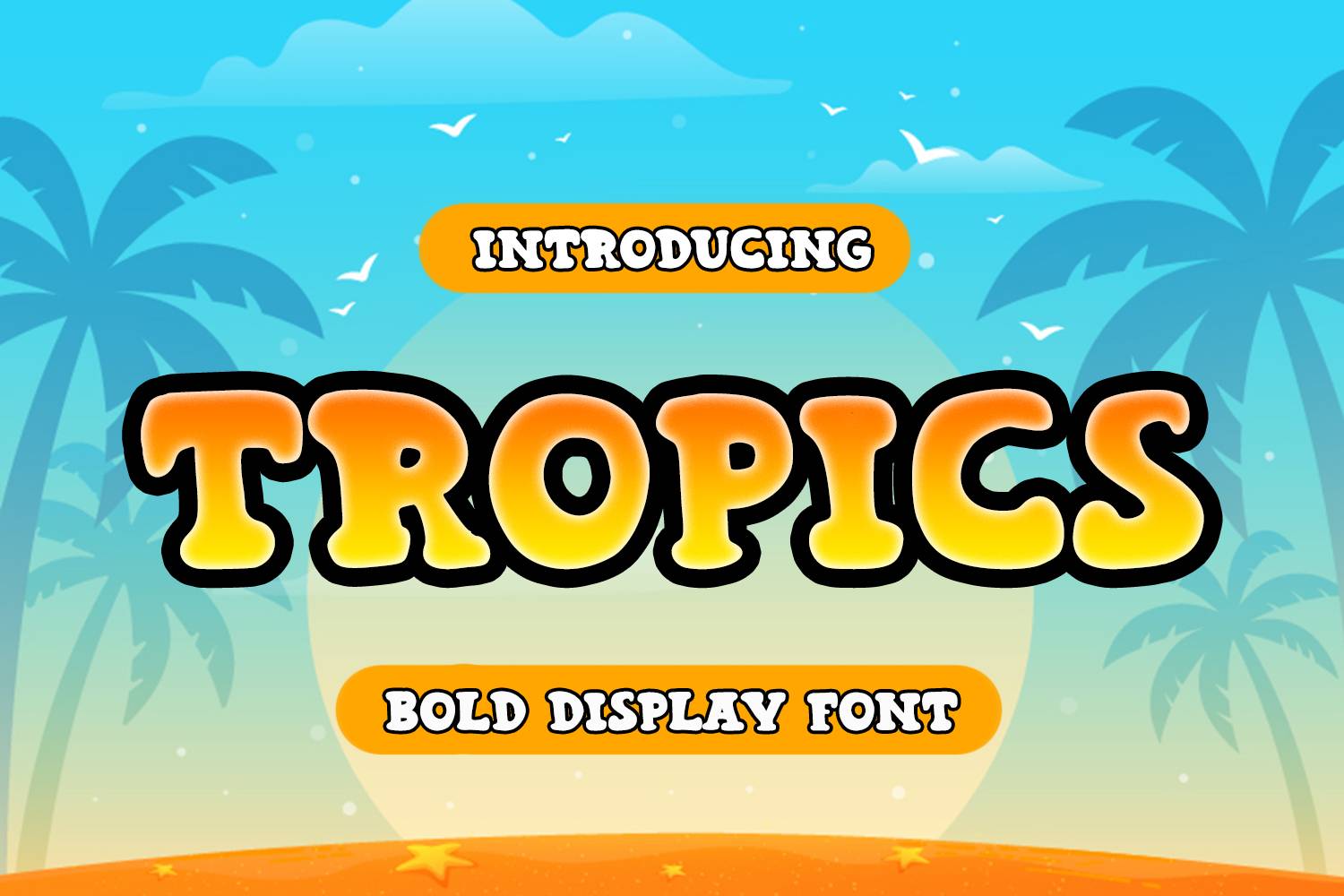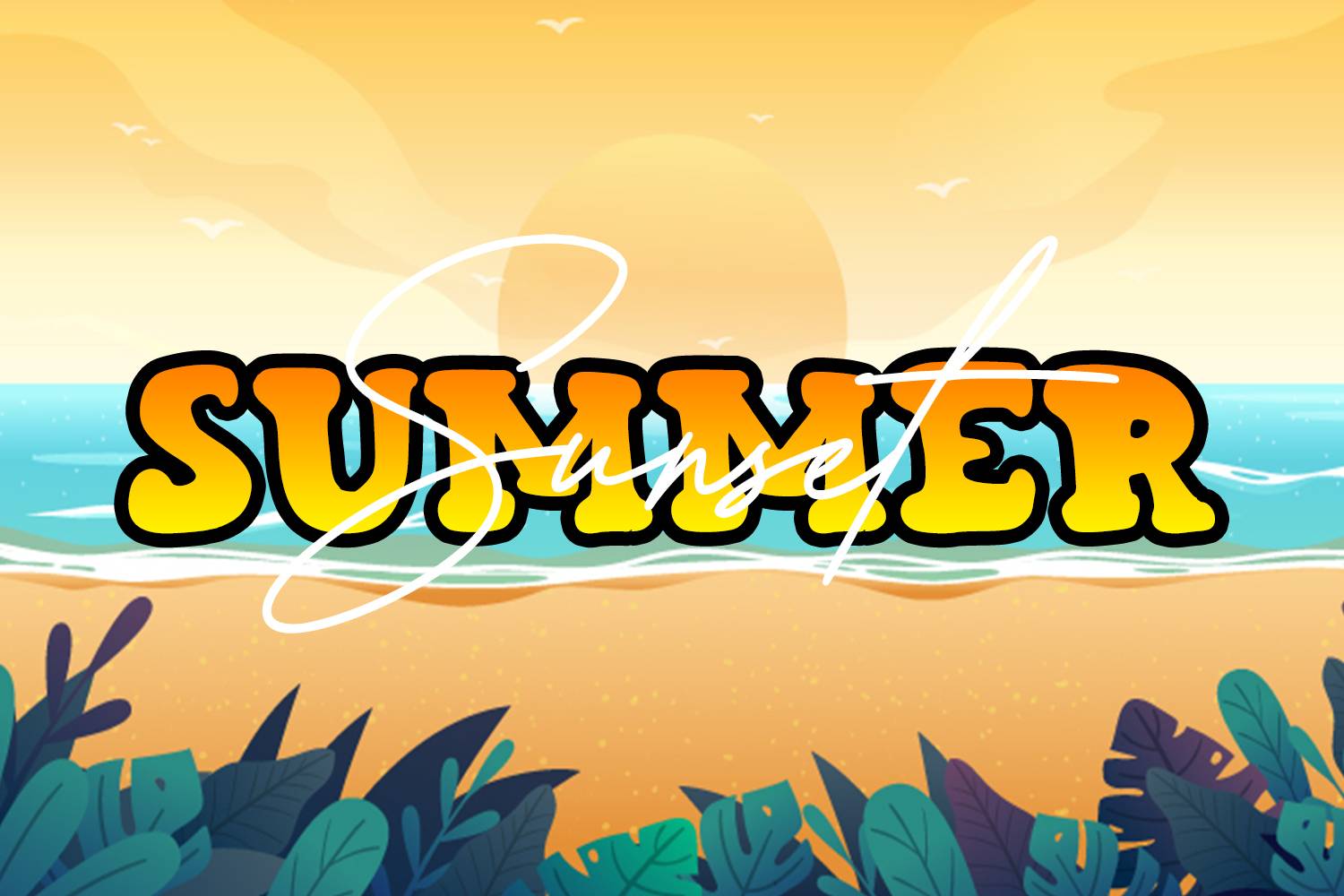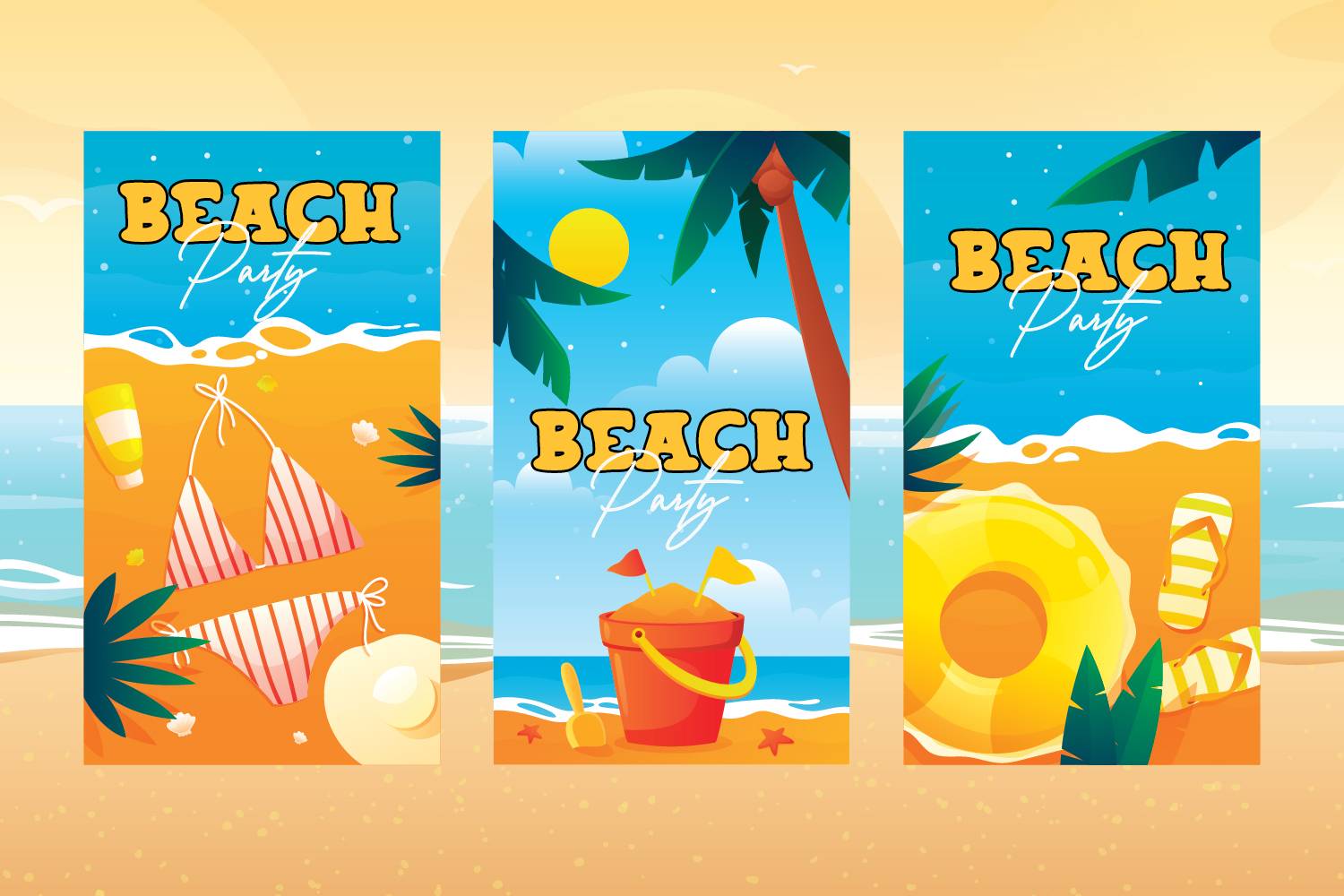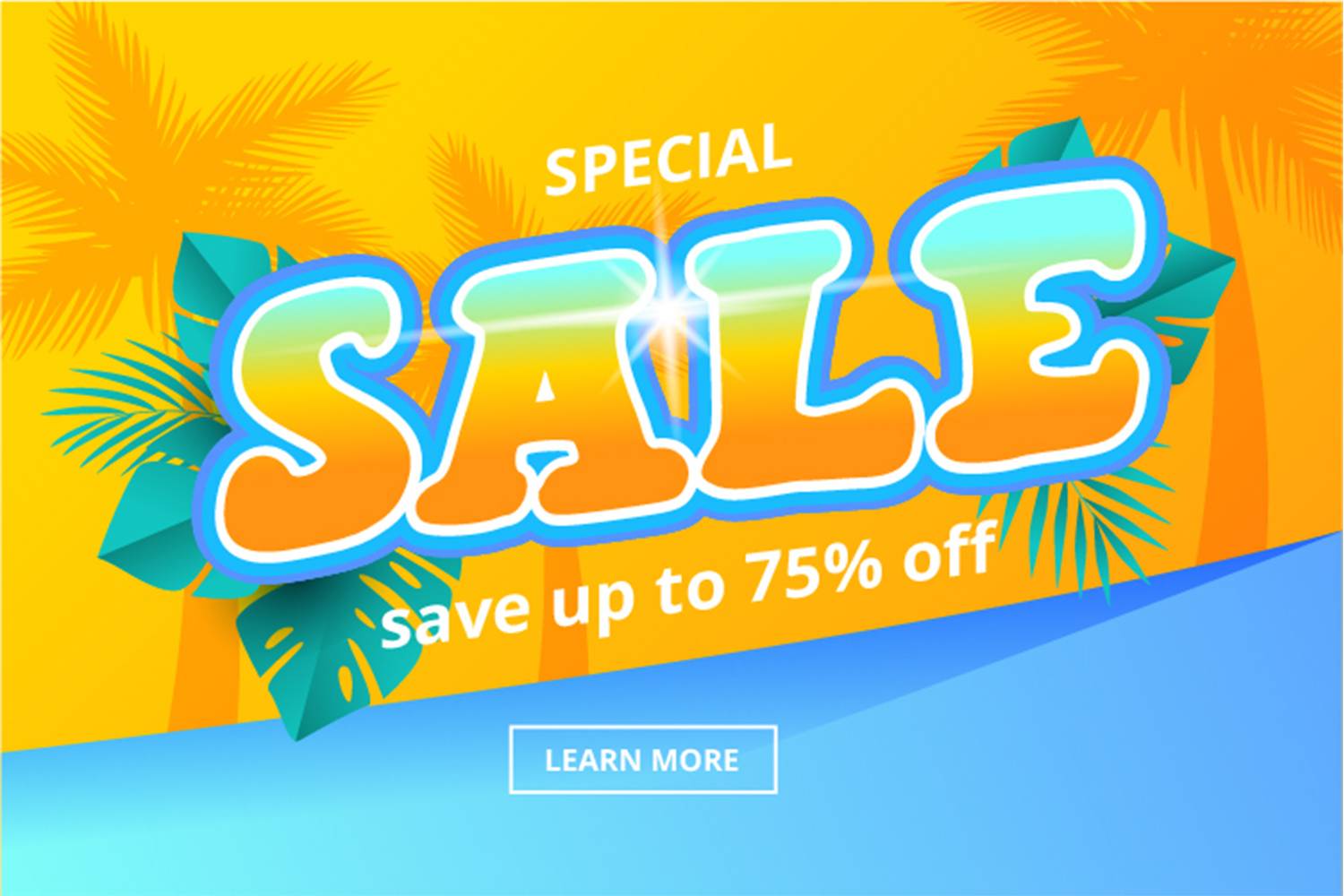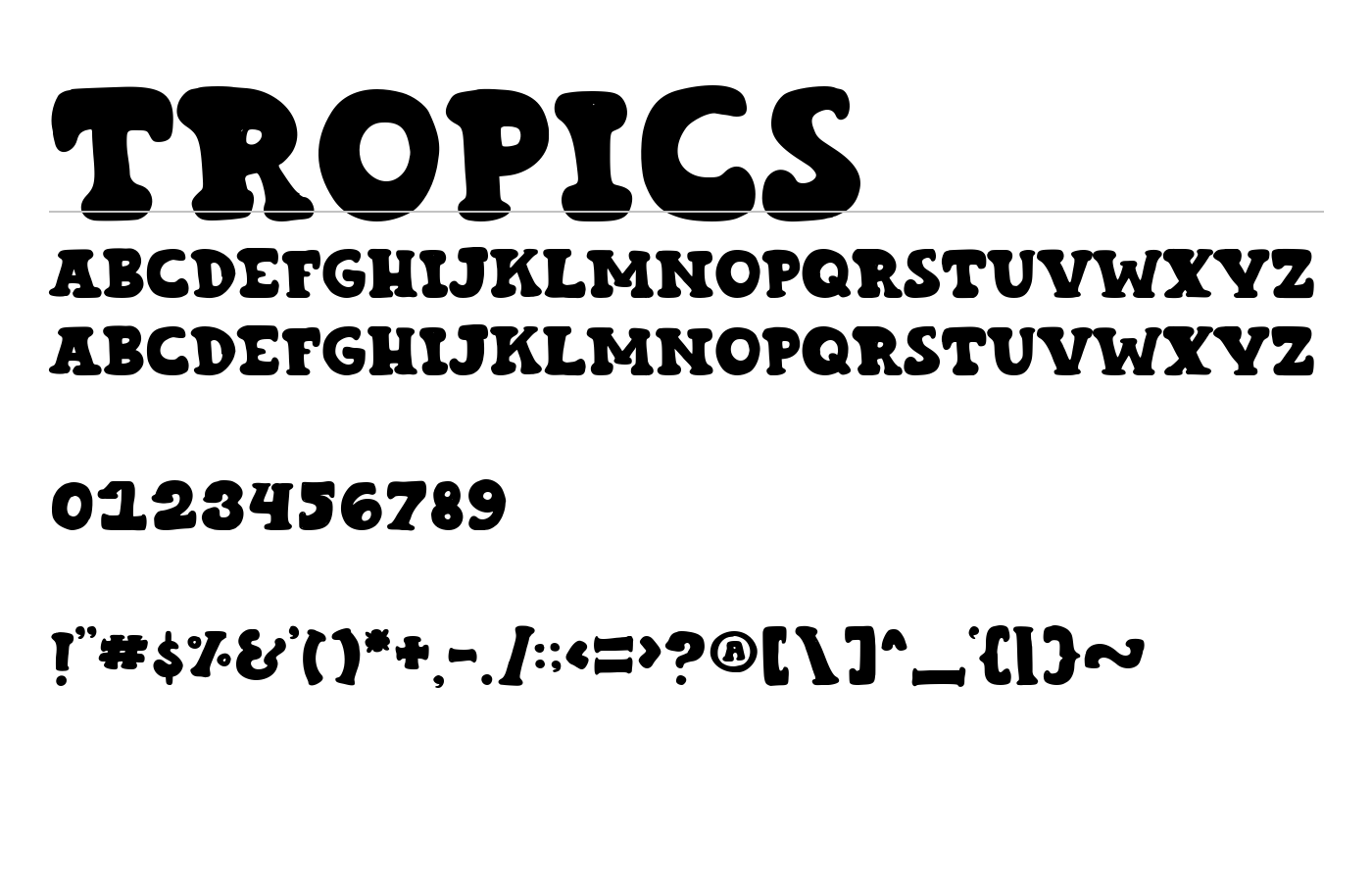
Tropics is a bold, playful display font with chunky, rounded letterforms that evoke a fun and casual vibe. Its thick, irregular strokes and whimsical shapes make it perfect for eye-catching headlines, logos, and branding that aim to convey a lively, tropical atmosphere. This font works best in informal designs where personality and charm are key, such as packaging, posters, and creative advertising.
Tropics Font
About Tropics Font